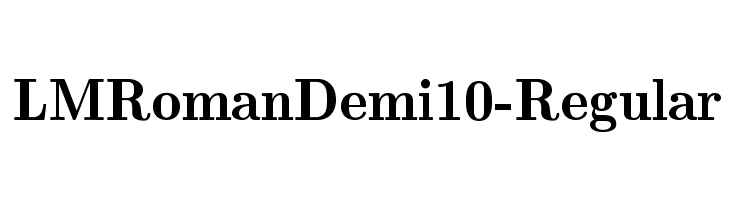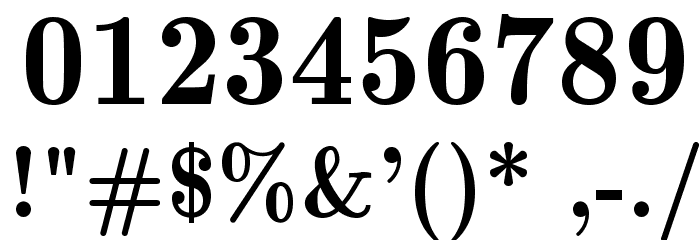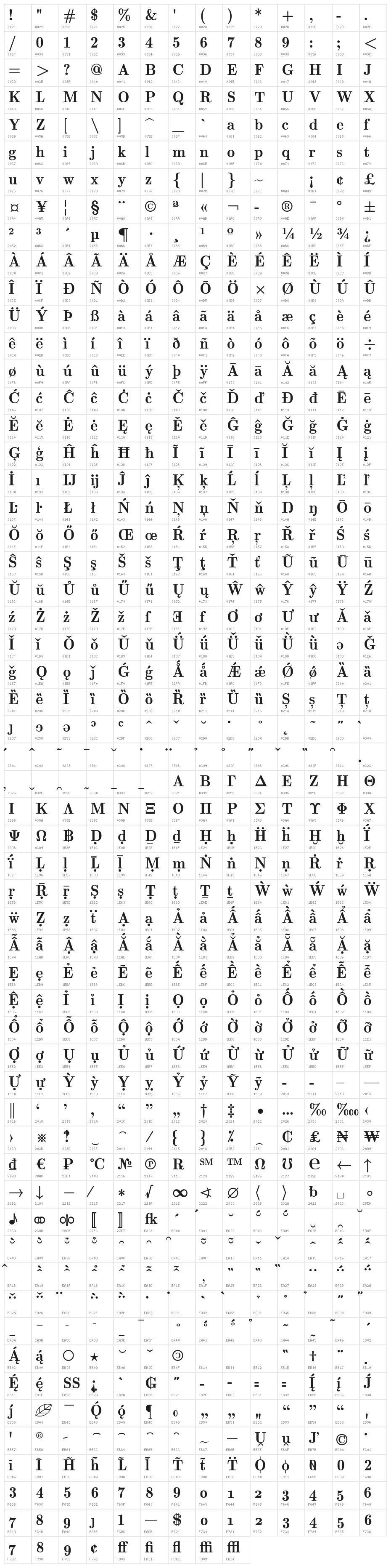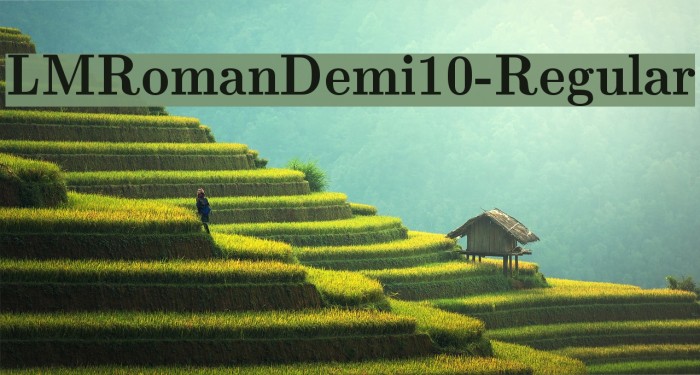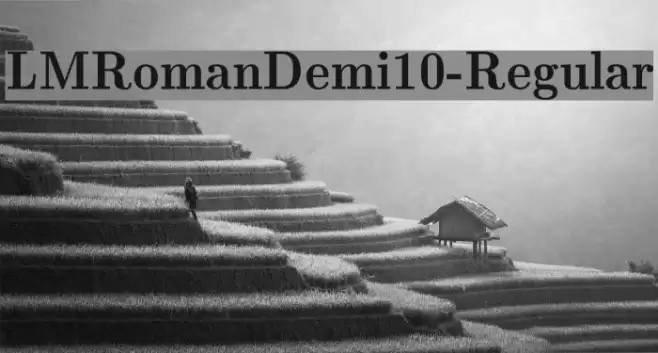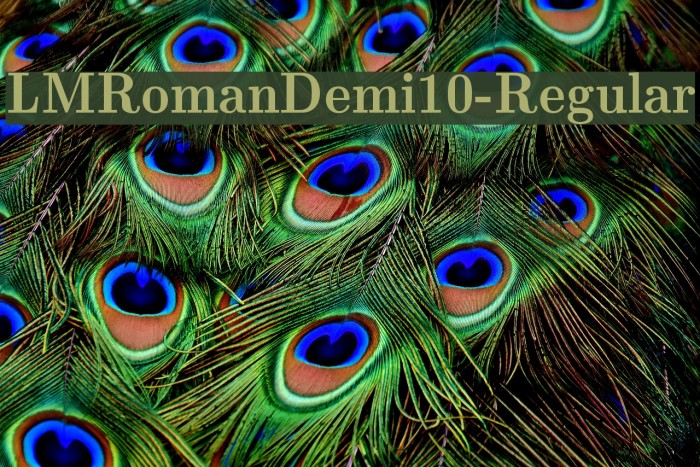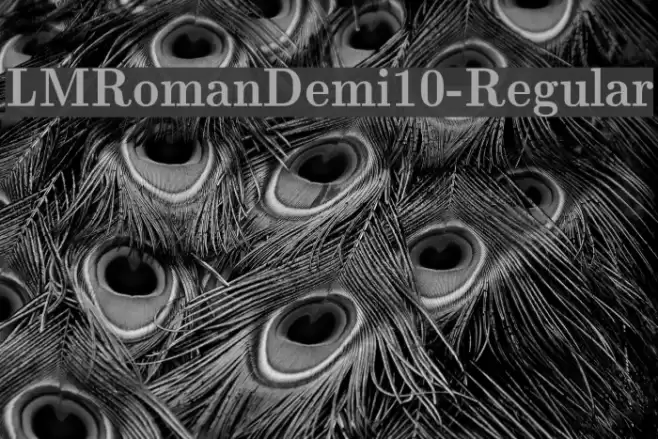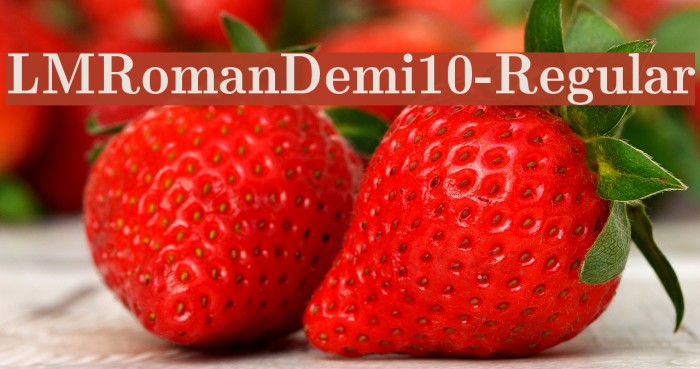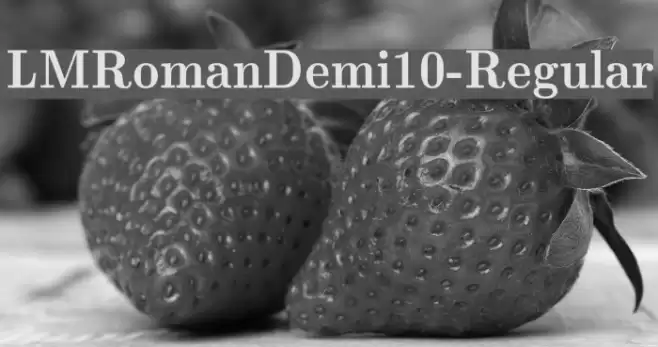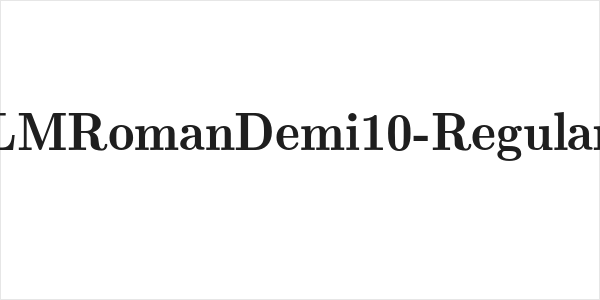
LMRomanDemi10-Regular Font
LMRomanDemi10-Regular Description
This font exhibits a classic serif style with a strong and authoritative presence. The characters are well-defined with sharp serifs and a balanced weight distribution, making it ideal for formal and professional applications. The uppercase letters are bold and commanding, while the lowercase letters maintain a consistent and readable form. The numerals are clear and distinct, ensuring legibility in various contexts. Special characters are elegantly designed, complementing the overall aesthetic. The font's structure is traditional yet versatile, suitable for a wide range of uses.
| Proposed Projects | Ideal for book typesetting, formal documents, branding materials, and editorial design. |